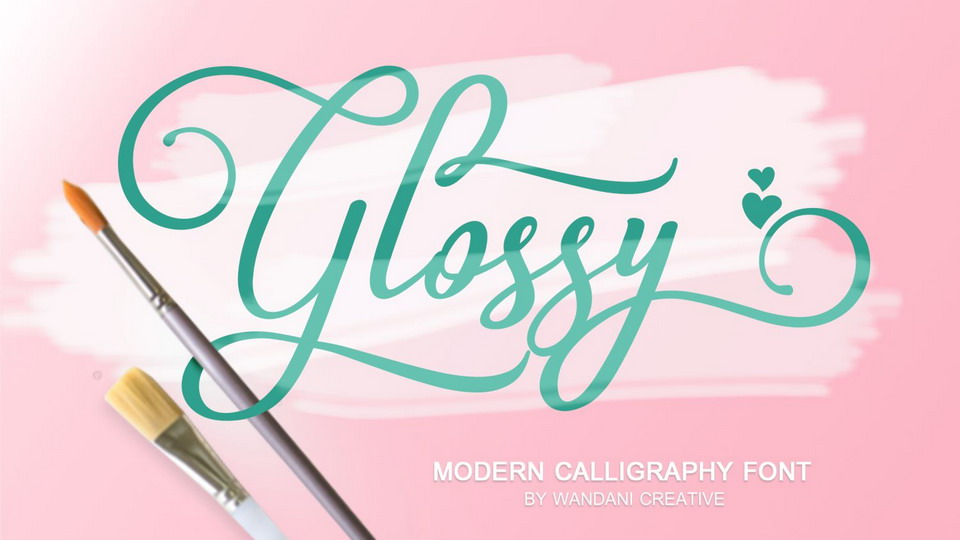
Download Glossy font, a beautiful, elegant and charming script in appearance and design. Glossy Scriptcomes with various characters and ligatures, so you can make the most interesting calligraphy design in a simple and easy way.
Designer: Wandani Creative